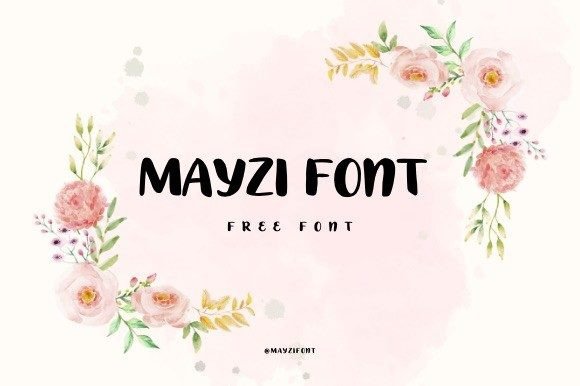
Mayzi: The Elegant Script Font for Elevated Designs
Understanding Mayzi's Visual Charm and Versatility
When you first encounter Mayzi, it's the visible charm that captures your attention. This is a beautiful font created to give your designs the most elegant impression. As a highly customizable and beautiful script, Mayzi strikes a delicate balance between decorative flair and functional clarity. Its letterforms flow with a natural, handwritten rhythm, yet each character is crafted with the precision expected of a premium font. The result is a typeface that feels both personal and polished, making it a versatile asset in any designer's toolkit.
Mayzi isn't just another script font. Its personality is warm, approachable, and inherently sophisticated. The style leans into a modern calligraphic aesthetic, avoiding the overly ornate swirls that can hinder legibility. Instead, it offers a clean, flowing baseline with subtle, elegant connections between letters. This makes it an excellent creative font for projects where you need to convey a sense of handmade quality without sacrificing professionalism. You'll find yourself using it endlessly because it adapts so seamlessly to different contexts, from digital interfaces to physical products.
Where Mayzi Truly Shines: Practical Applications
The real value of a font like Mayzi is realized in its application. It’s not about the font in isolation, but how it elevates a specific project. For brand identity, Mayzi can be a game-changer. Imagine it used for a boutique bakery's logo, a wedding planner's stationery, or a skincare brand's packaging. It immediately infuses the brand with a sense of care, elegance, and artisanal quality. In editorial design, such as magazine headlines or chapter titles in a book, it draws the reader in and sets a distinct, engaging tone.
For entrepreneurs and small business owners, the applications are incredibly practical. This font is perfect for creating:
Crafters and hobbyists will also appreciate its utility. Whether you're designing custom invitations, scrapbooking layouts, or printable wall art, Mayzi provides that professional, cohesive look that ties a project together. It takes your designs to the next level by adding a layer of intentional, elegant typography that standard system fonts often lack.
Integrating Mayzi into Your Design Workflow
Choosing a font is a strategic decision. To evaluate if Mayzi is the right fit, consider your project's core message. If you're aiming for authenticity, warmth, and a touch of luxury, it's a strong candidate. However, for body text or technical documents, a serif font or sans serif font would be more appropriate. Mayzi excels as a headline or accent font, where its personality can shine without overwhelming the reader.
A critical step is testing font pairing. Mayzi pairs beautifully with clean, simple typefaces. Try combining it with a geometric sans serif like Montserrat or a classic serif like Playfair Display. The contrast creates a dynamic visual hierarchy, with Mayzi drawing attention to key messages and the supporting font ensuring readability for longer passages. Always test your pairings at different sizes and on various backgrounds to ensure the combination remains legible and effective.
Incorporating Mayzi into your design assets is about more than just having a pretty font. It's about equipping yourself with a tool that enhances communication, strengthens brand perception, and engages your audience on an emotional level. When used thoughtfully, it doesn't just complete a design—it defines it.